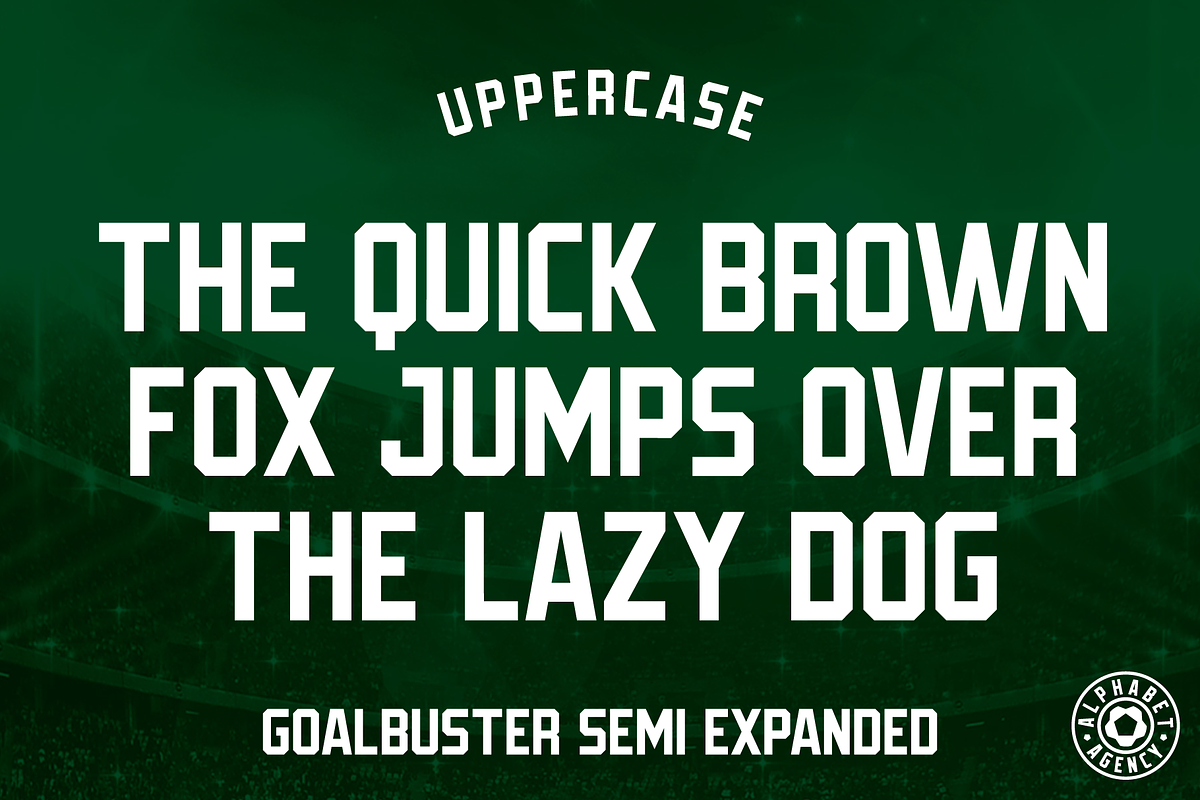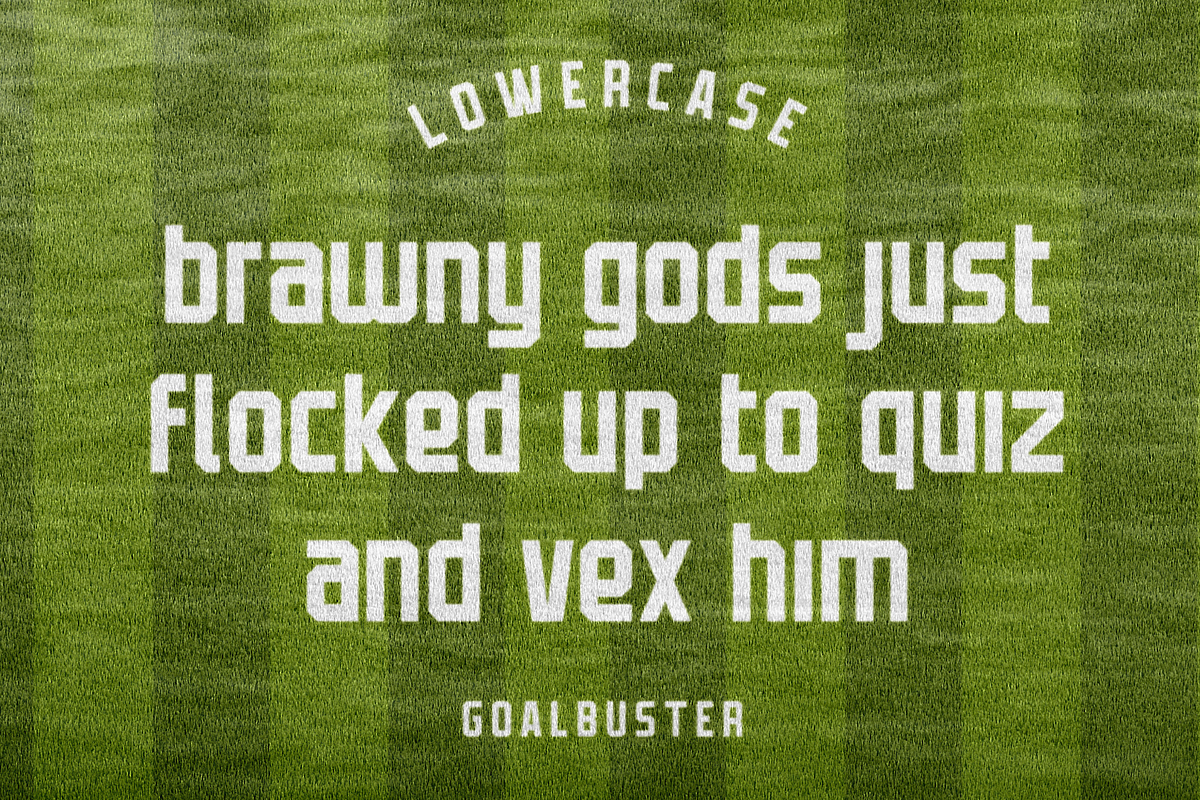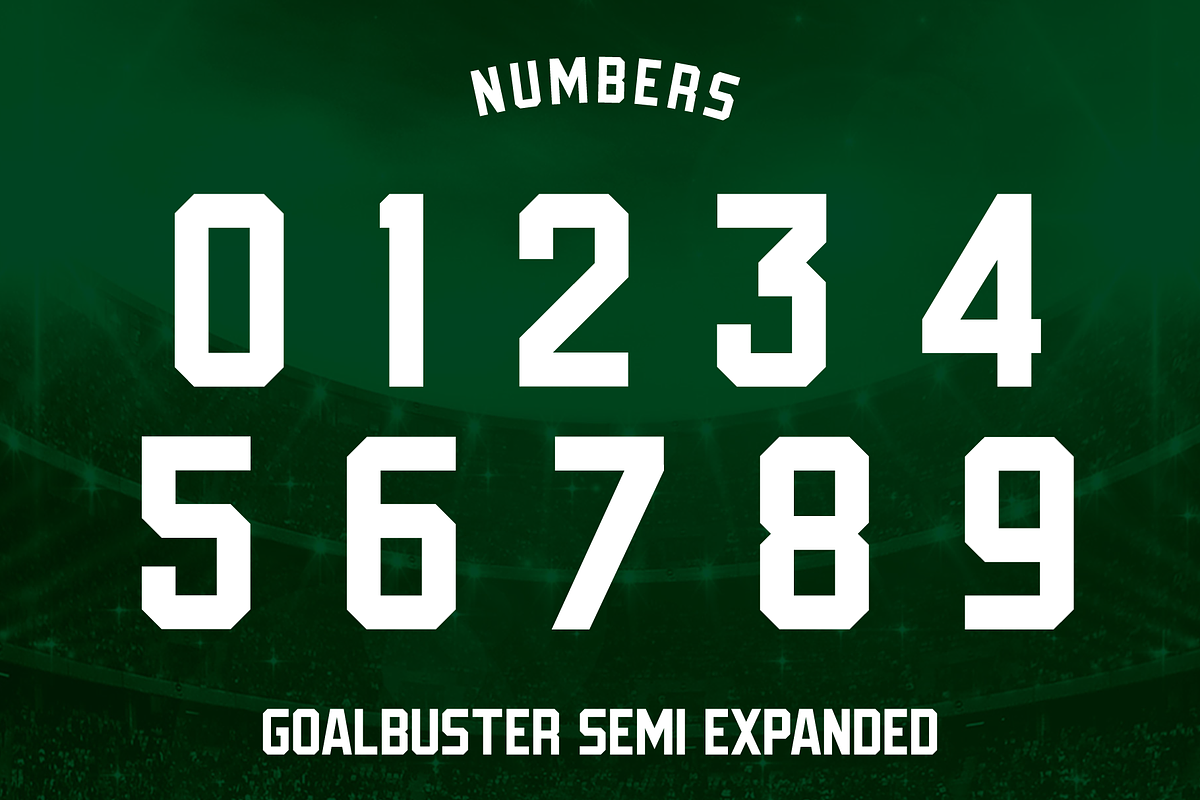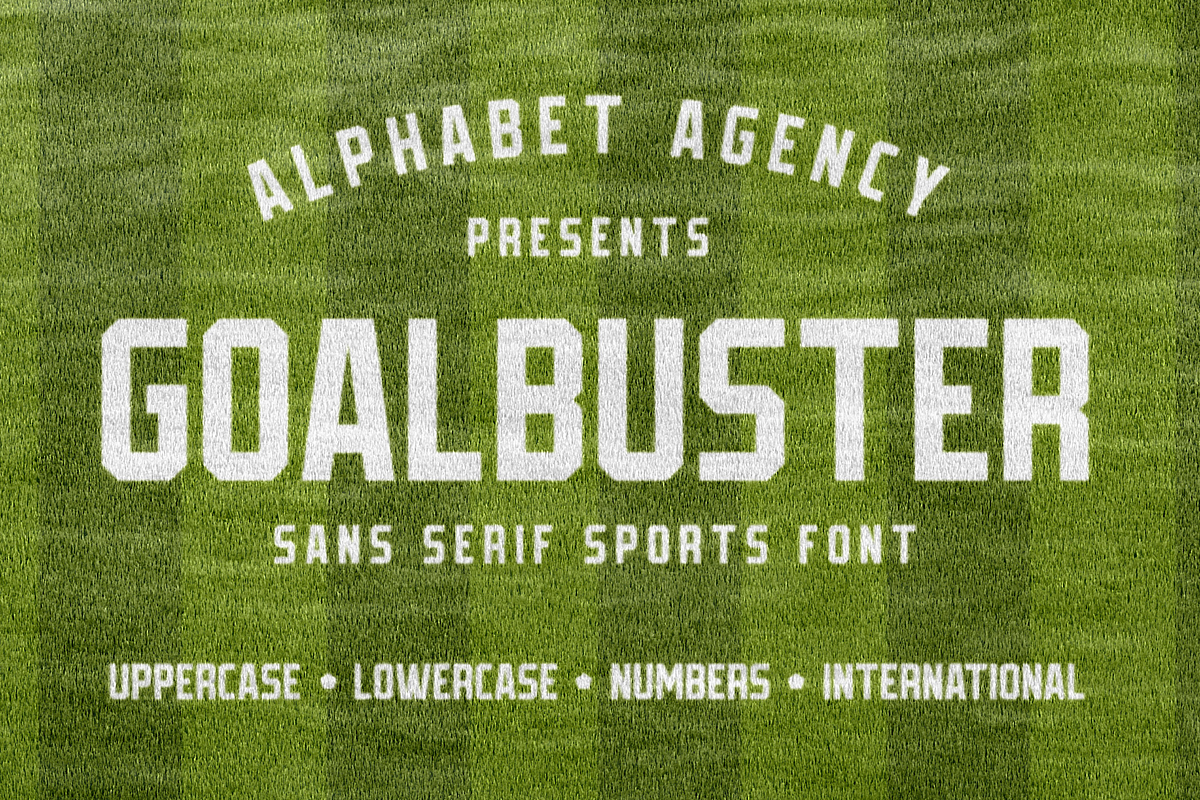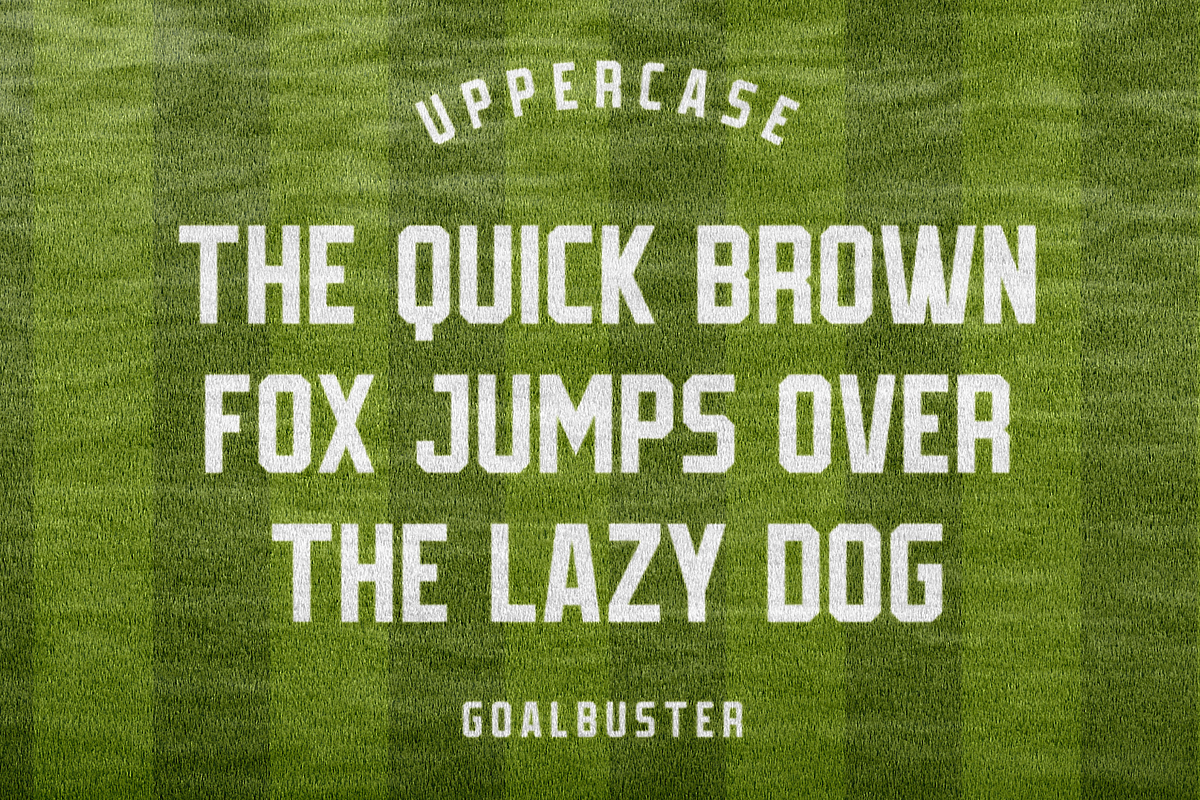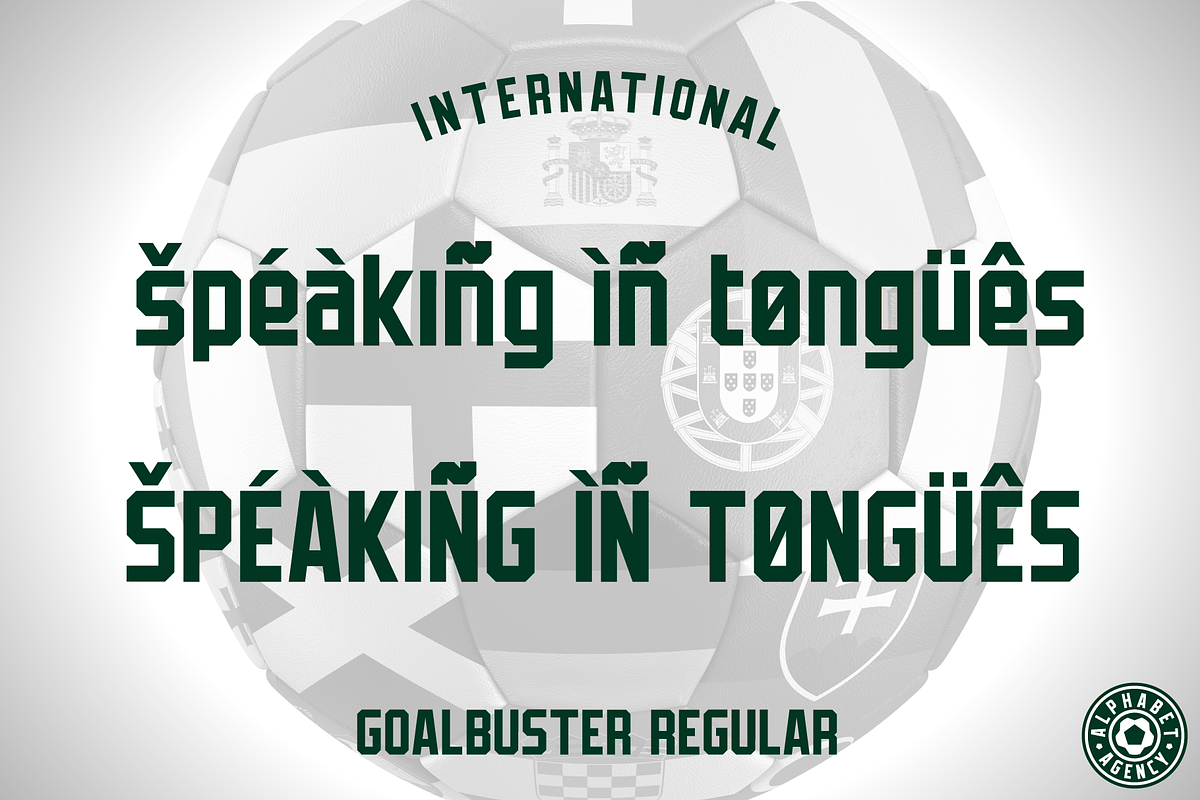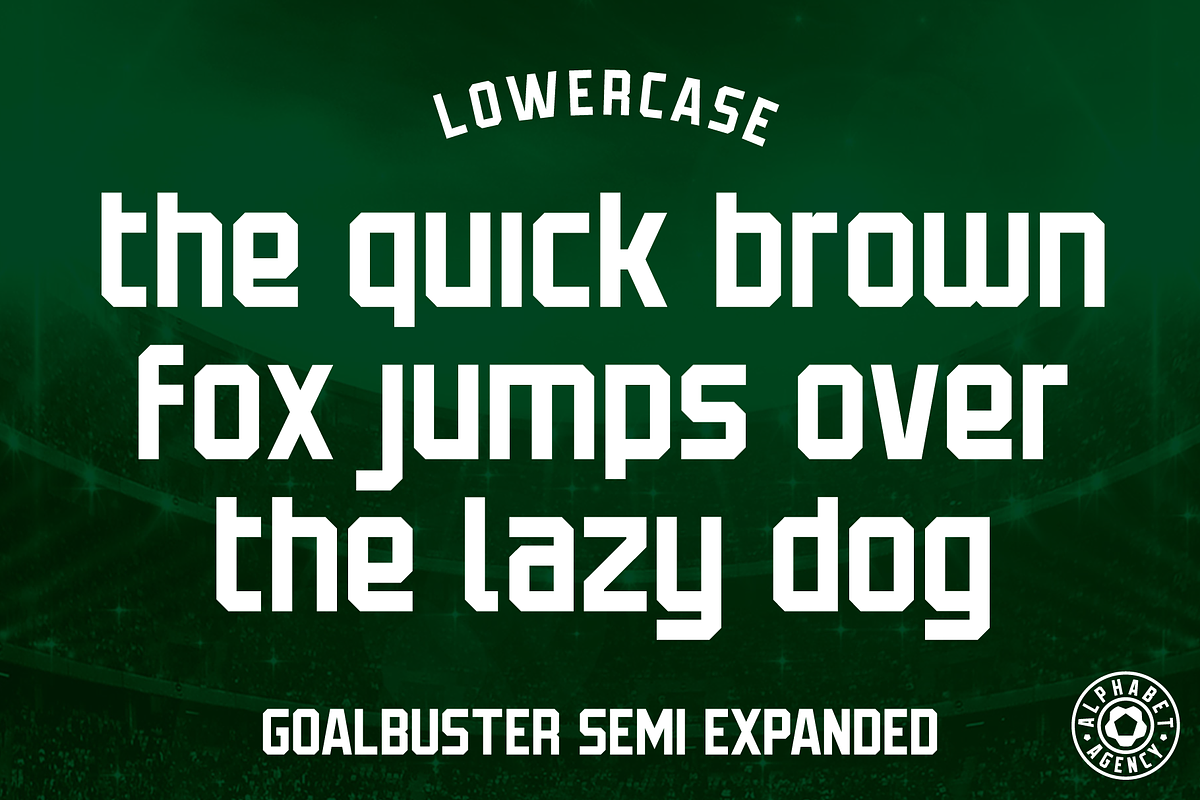
Goalbuster Fonts
Magnificent11 Regular and Semi Extended are sans serif fonts design by Jonathan Swinn of the Alphabet Agency Font Foundry. The font was originally designed for use in sports themed design.
Each of the fonts includes Latin uppercase, lowercase, numbers and punctuation letters.
The font name is a play on The Magnificent Seven film title with the 'Seven' being replaced by 11, a reference to the number of starting players for a football / soccer team line up.